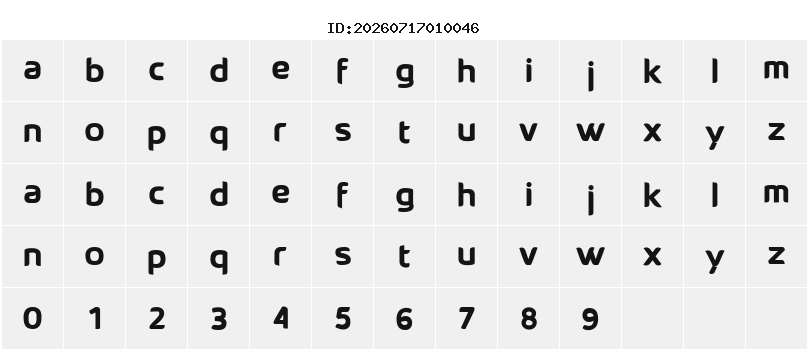
Salutino Preview
• Font Name: Salutino
• Full Font Name: ATO Salutino
• PostScript Name: ATOSalutino
• Copyright: Created by Alvaro Thomaz
• Designer: Alvaro Thomaz
About Salutino.ttf
Salutino.ttf is a modern, elegant sans-serif font designed for ultimate readability and visual harmony. Perfect for branding, headlines, web design, and print materials.